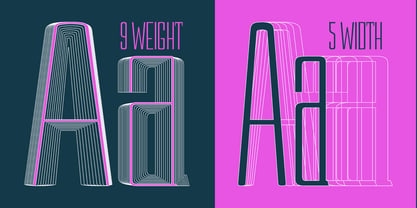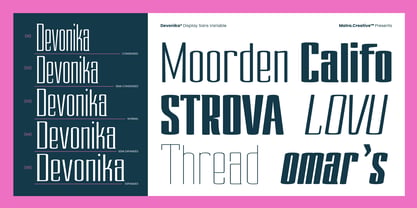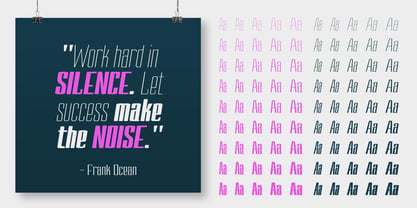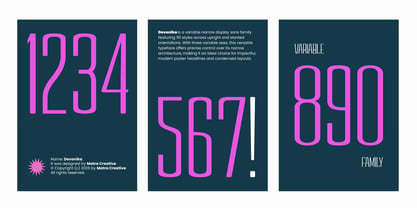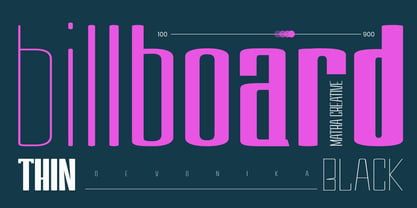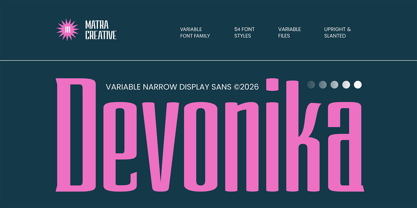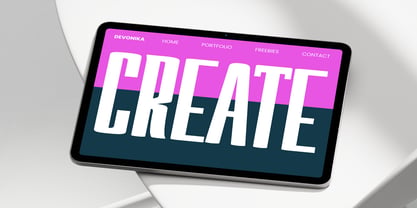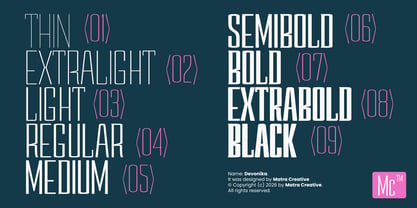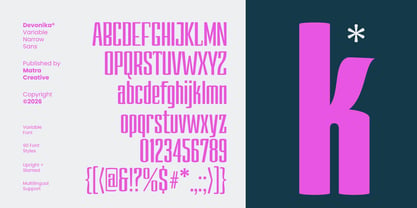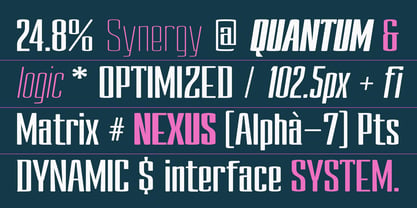
Devonika Variable
The Devonika Variable Font Family was designed by May Adifarzan muis and published by Matra Creative. Devonika Variable contains 55 styles and family package options. More about this family
Devonika is a modern display sans-serif meticulously crafted with a striking extra-condensed silhouette, designed to deliver maximum visual impact with a high-end, sophisticated aesthetic. By combining towering vertical proportions with a solid, grounded structure, this typeface exudes an air of authority and elegance. Its clean lines and sharp terminals create a beautiful "picket fence" rhythm, giving any typographic layout a cohesive, architectural feel that is both bold and harmoniously balanced. Engineered for versatility, Devonika excels where space is a premium but a powerful statement is required. It is an exceptional choice for editorial headlines, luxury branding, cinematic titles, and modern packaging. Whether used for a minimalist logo or a dense magazine cover, Devonika provides a sharp, polished finish that instantly elevates any creative project. Elevate your design with the timeless power of Devonika.